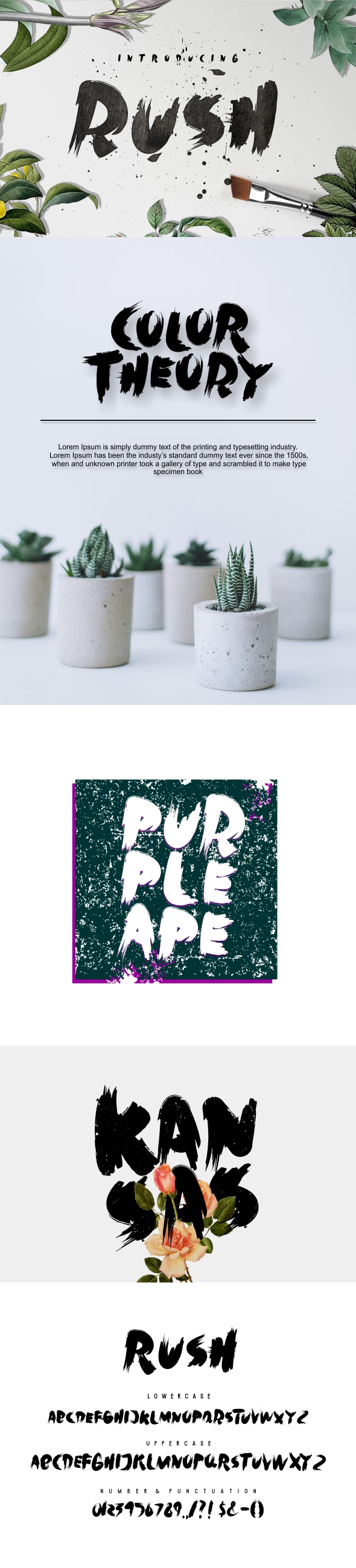
Give your designs an authentic brush handcrafted fell. “Rush Brush Font” is perfeccly suited to stationery, poster, product packaging, album cover, movie poster & much more